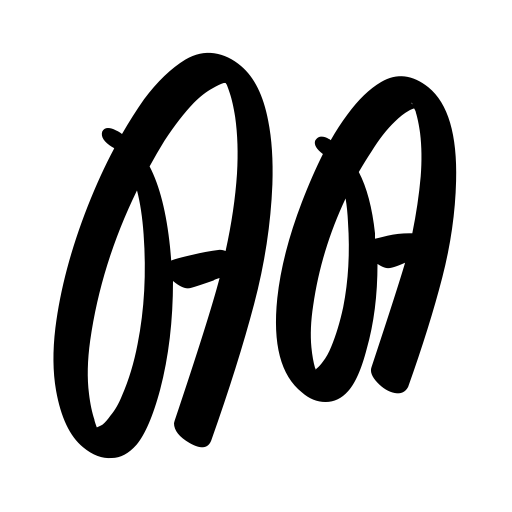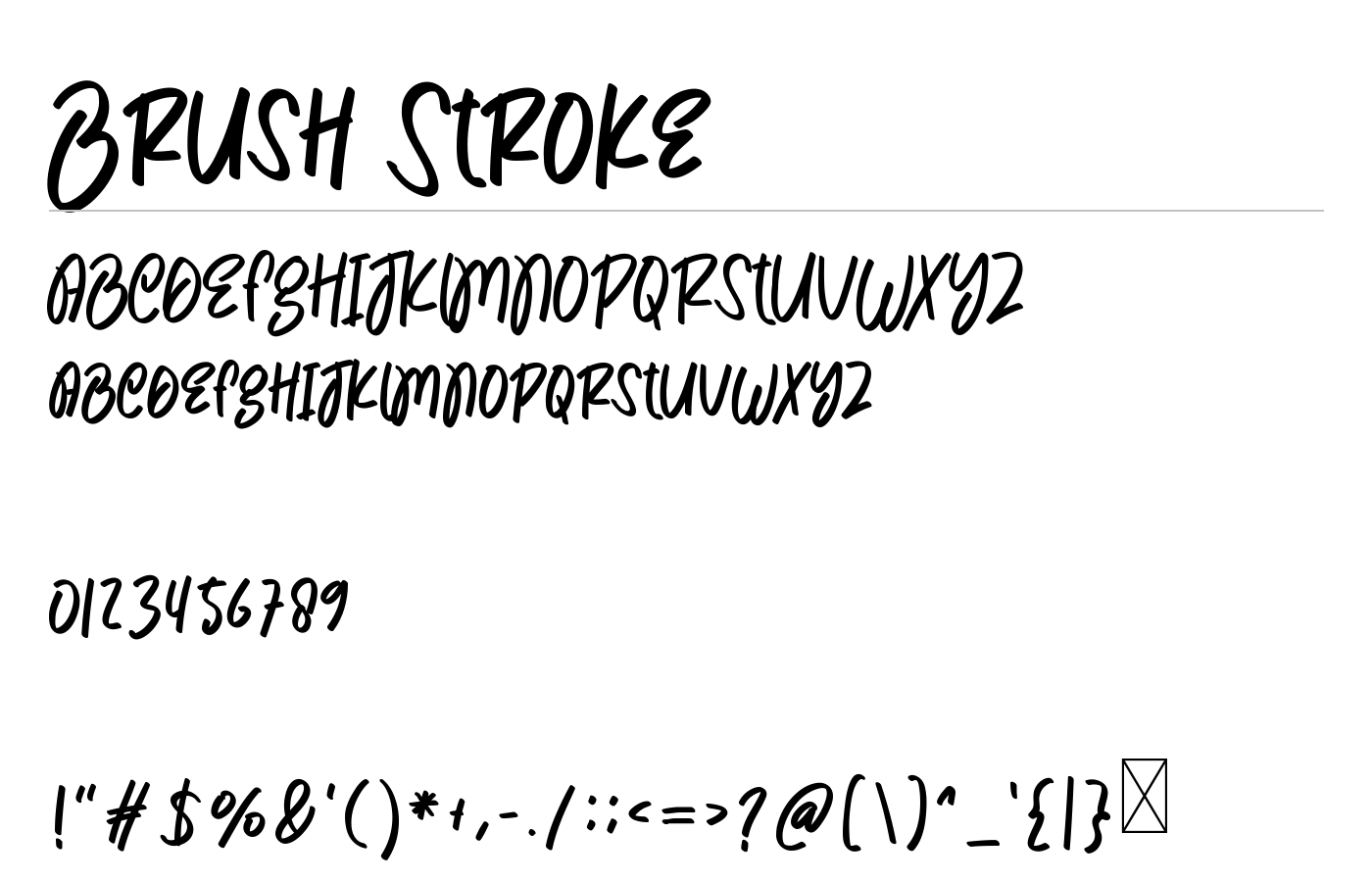
Brush Stroke is a lively, casual script font that mimics the natural flow of hand-painted brush lettering, characterized by its medium weight and expressive, slightly textured strokes. It has a playful and artistic feel, with tall, narrow letterforms and a dynamic rhythm, making it perfect for creative branding, invitations, posters, and any design that seeks a personal, handcrafted touch. This font’s informal yet stylish personality brings energy and charm, ideal for projects that want to stand out with a friendly, bold flair.
Brush Stroke Font
About Brush Stroke Font